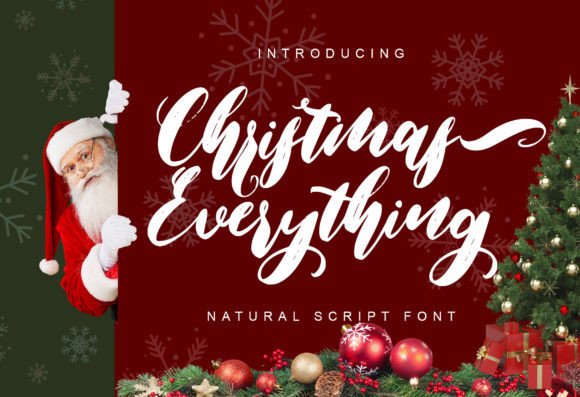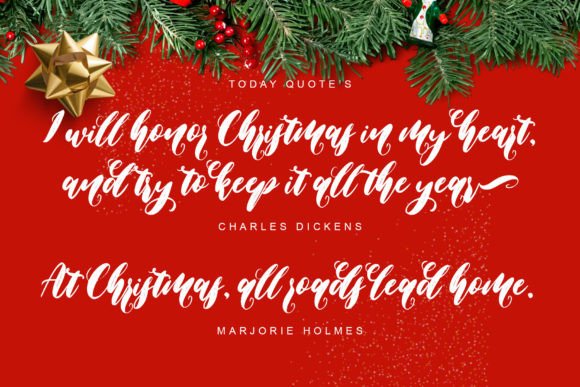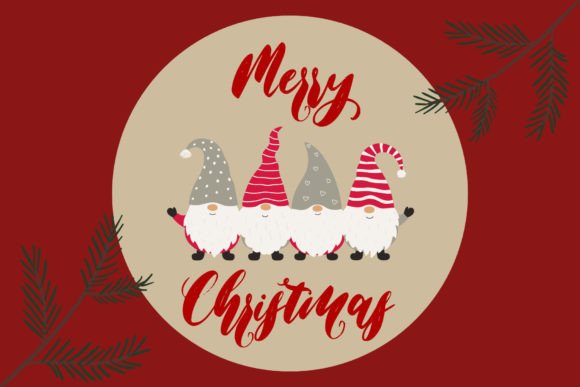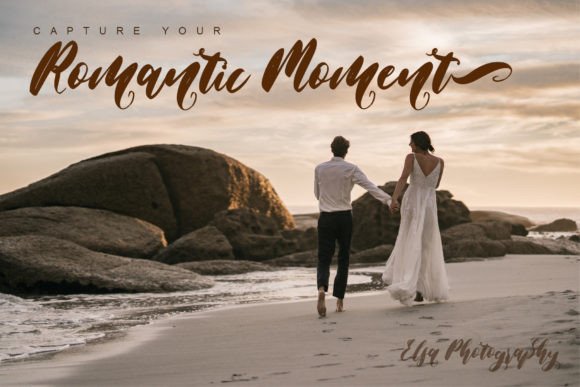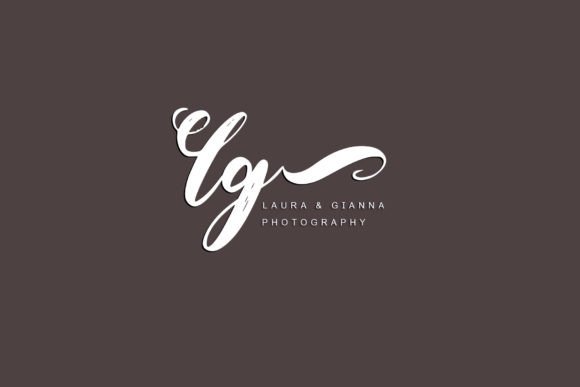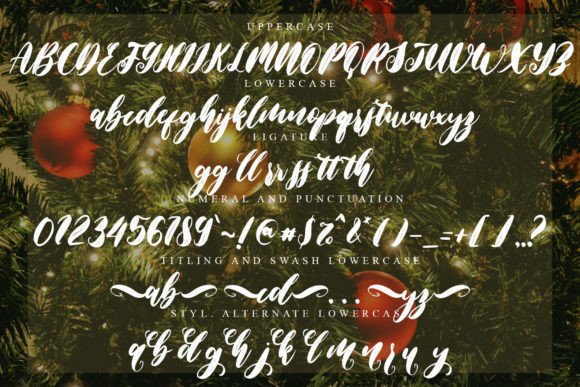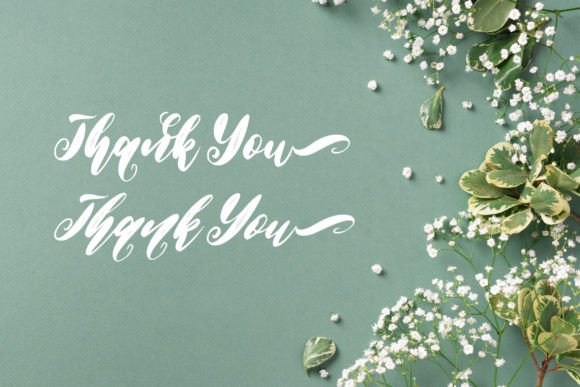
Christmas Everything Font
Add Festive Charm with Christmas Everything Font
The Christmas Everything font is a dazzling and timeless handwritten script designed to bring festive spirit and elegance to your holiday projects. Perfect for the Christmas season, this font adds a magical touch to logos, branding, quotes, invitations, and more.
Ideal for Christmas Logos, Branding, and Quotes
The Christmas Everything font excels in various seasonal applications including holiday cards, promotional materials, social media posts, event invitations, and product packaging. Its graceful strokes and classic style create a warm and inviting atmosphere that elevates your festive designs.
PUA Encoded for Easy Access to Glyphs and Swashes
This font is PUA encoded, meaning you can easily access all glyphs and swashes without additional software. This feature allows you to customize your designs with beautiful flourishes and stylistic alternates effortlessly.
Despite its decorative and festive style, the Christmas Everything font maintains excellent readability across various sizes. Whether used for headlines, logos, or smaller text elements, it balances elegance with clarity, making it a versatile choice for many creative projects.
Make Your Holiday Designs Shine with Timeless Elegance
Typography plays a crucial role in defining your design’s mood, and Christmas Everything adds a sparkling and classic spirit. If you want to elevate your holiday projects with a dazzling handwritten script, download the Christmas Everything font today and create stunning, memorable visuals.